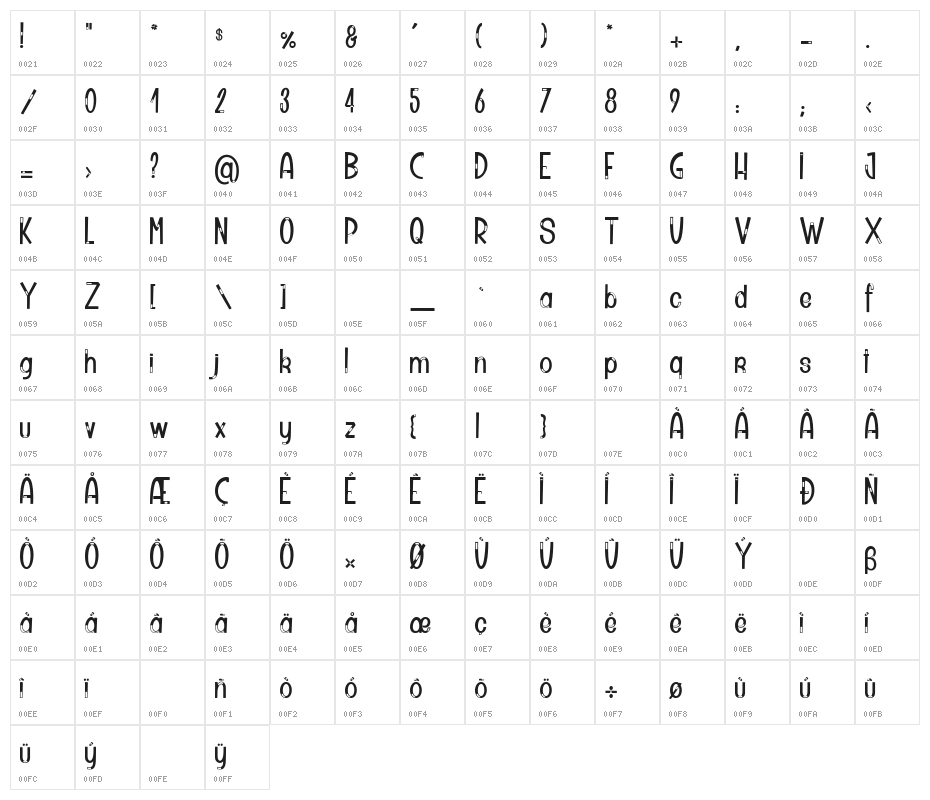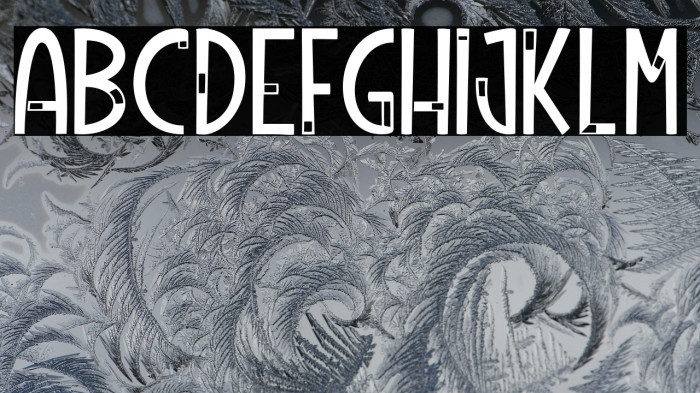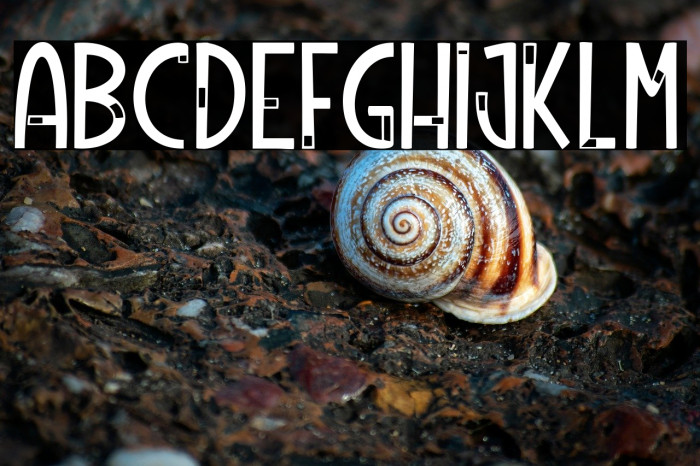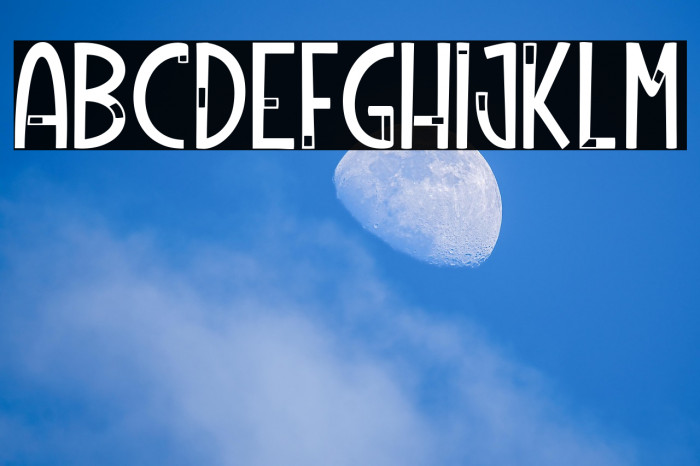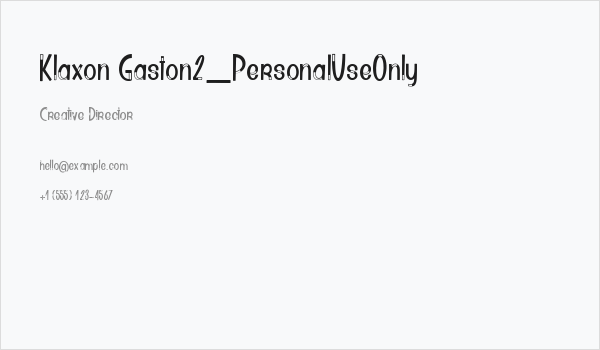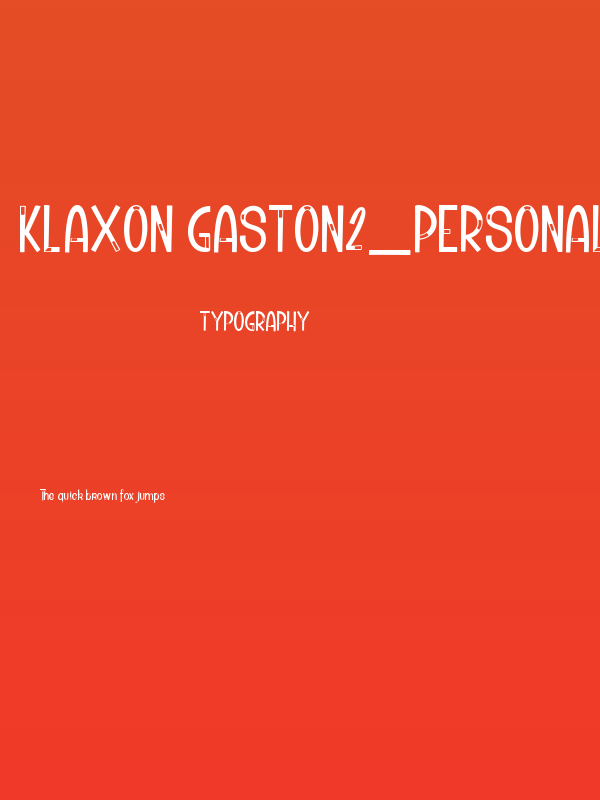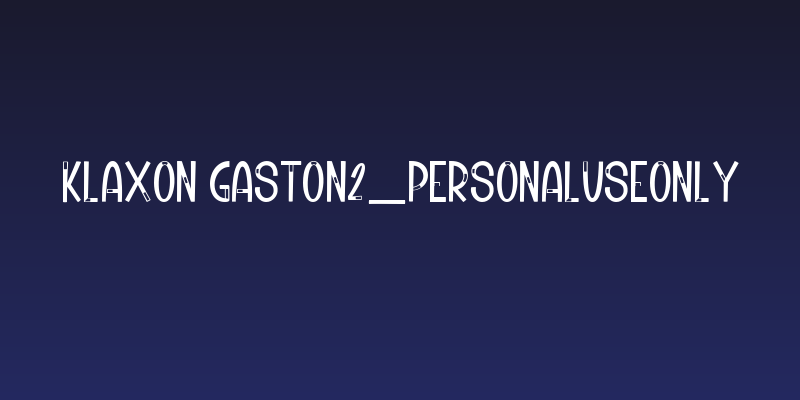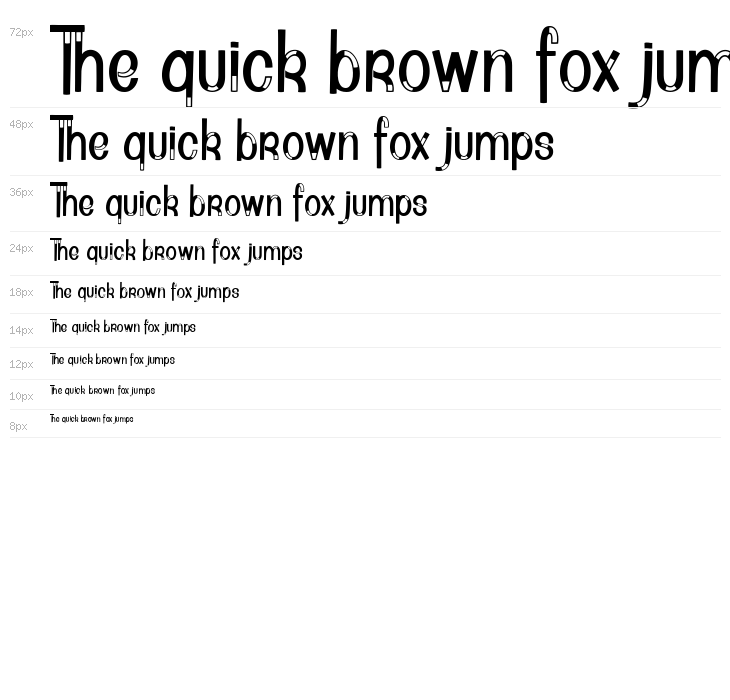
Klaxon Gaston2_PersonalUseOnly Font
Klaxon Gaston2_PersonalUseOnly Description
This font features a unique and playful design with a mix of solid and outlined elements within each character. The uppercase letters are bold and striking, with a distinct geometric influence that adds a modern twist. Lowercase letters maintain the playful aesthetic, with some characters featuring unexpected curves and angles. The numerals are consistent with the overall style, offering a quirky yet readable appearance. Special characters are creatively integrated, enhancing the font's decorative appeal. This font is ideal for projects that require a fun and engaging visual impact.